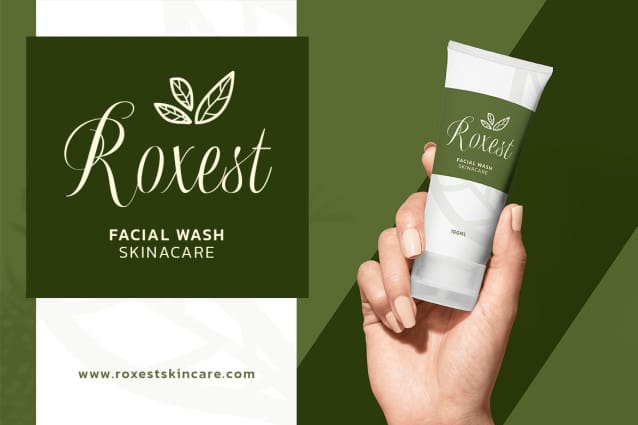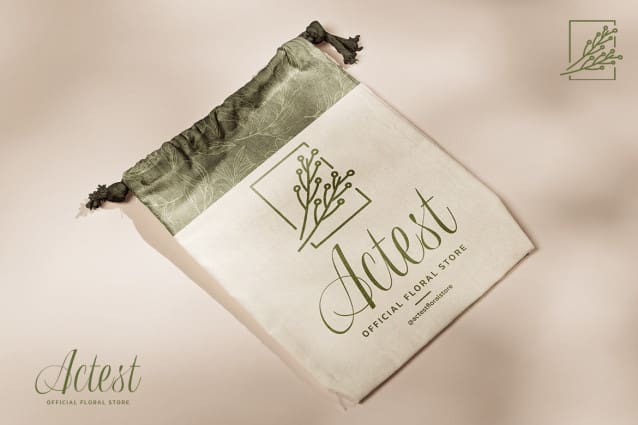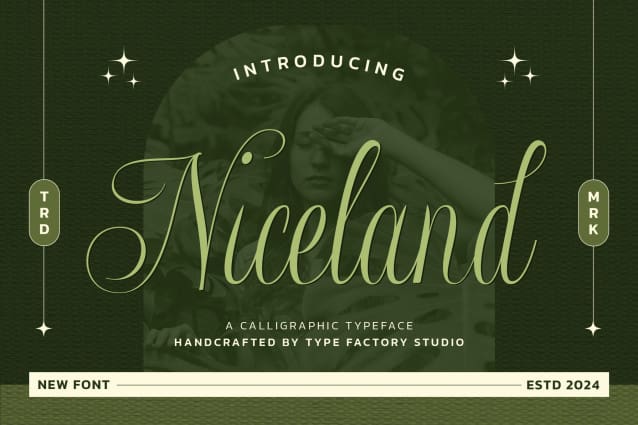
Niceland Font
Niceland Font is a graceful calligraphic font that reflects the elegance and fluidity of traditional script. With its flowing curves and refined strokes, Niceland Font is perfect for invitations, wedding stationery, logos, and brands that demand a touch of sophistication and artistry. This font combines classic calligraphic beauty with a modern design, making it ideal for projects that need to convey a touch of elegance and warmth. Whether printed or digital, Niceland brings a touch of finesse and charm to any design